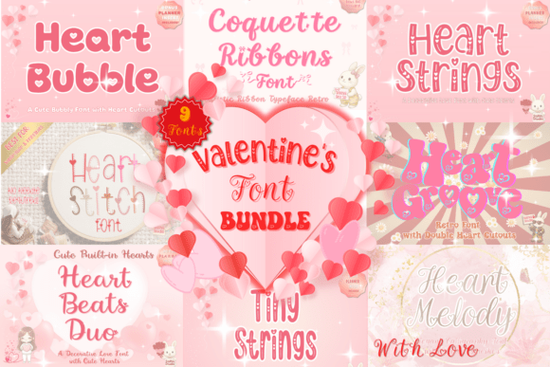
If you're creating Valentine’s Day cards, wedding stationery, or even printable planner stickers with a romantic flair, the Valentines Font Bundle Font offers a thoughtfully curated set of typefaces that cover a wide range of moods from playful to elegant. Instead of hunting for individual fonts that match your theme, this bundle gives you 10 cohesive styles in one download, all designed with love-themed details baked right in.
What kinds of projects work best with these fonts?
This collection shines when you need typography that feels personal and expressive. The fonts include everything from retro scripts to delicate calligraphy, making them ideal for:
- Handmade greeting cards and gift tags
- Digital planners with romantic or coquette aesthetics
- Print-on-demand mugs, tote bags, or apparel with sweet messages
- Wedding invitations that blend modern charm with classic elegance
- Sticker sheets for bullet journals or scrapbooking
For example, if you’re designing a Valentine’s card with a vintage vibe, Coquette Ribbons adds realistic 3D bow effects straight from the '70s. Meanwhile, Heart Melody brings graceful swashes perfect for formal wedding wording.
That said, it helps to read the included usage notes. For instance, Heart Stitch mimics embroidery with tiny dot textures great for sublimation or DTF printing, but not suited for vinyl cutting due to its fine details. Similarly, Coquette Ribbons works best when cut at 2 inches or larger to preserve its delicate structure.
These extras make it easier to build complete designs without sourcing additional graphics. If you enjoy mixing fonts and illustrations like pairing Tiny Strings with a bow SVG for a vertical sticker you’ll find plenty of synergy here.
How does this compare to other decorative font sets?
Many Valentine-themed fonts offer just one or two styles, often limited to basic scripts. This bundle stands out by including multiple variations of core concepts like the three versions of Heart Beats: solid, decorative, and a full-color SVG option (Heart Beats (Color)) that displays red hearts without manual coloring. That kind of depth is rare in seasonal bundles.
- Use sharp blades and larger sizes for Coquette Ribbons if cutting
- Reserve Heart Stitch for print not vinyl
- Experiment with layering fonts (e.g., Heart Bubble over Heart Groove for contrast)
- Try the bonus SVG bows with Tiny Strings for vertical gift tags